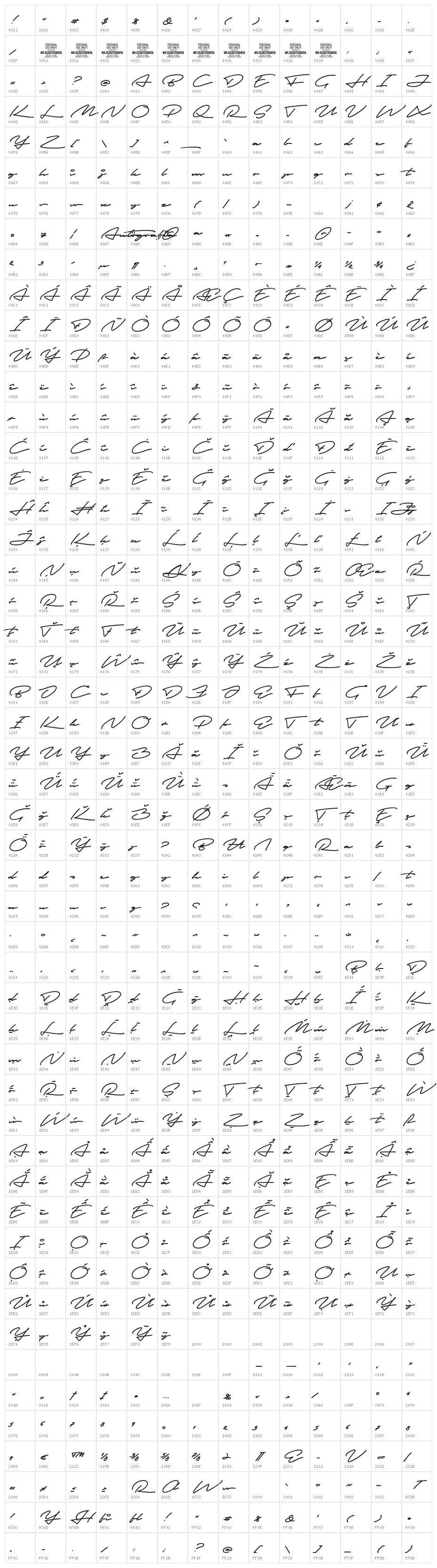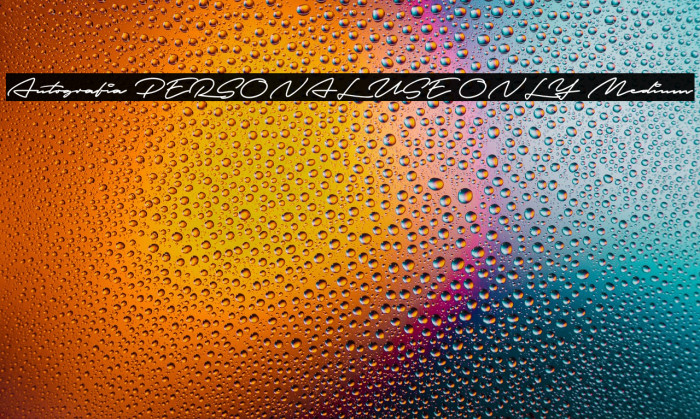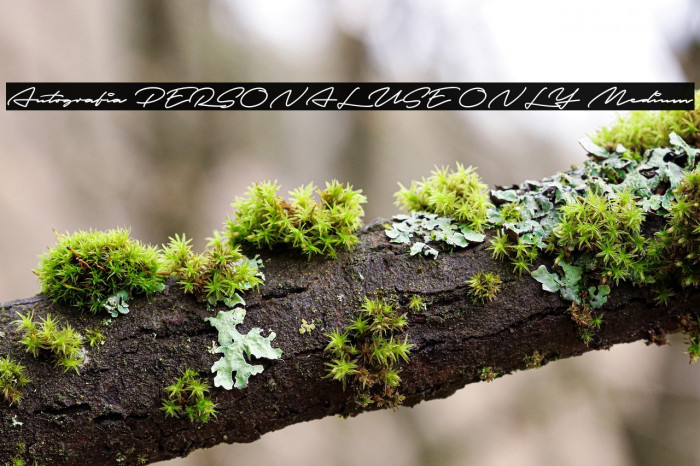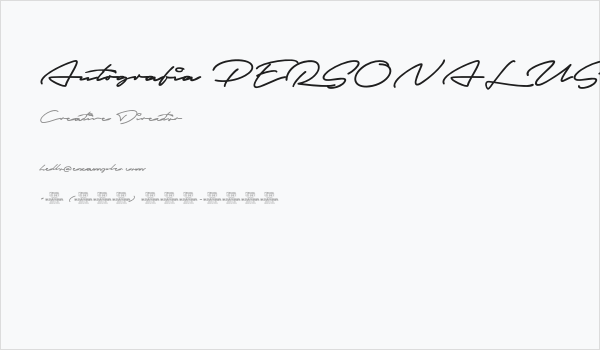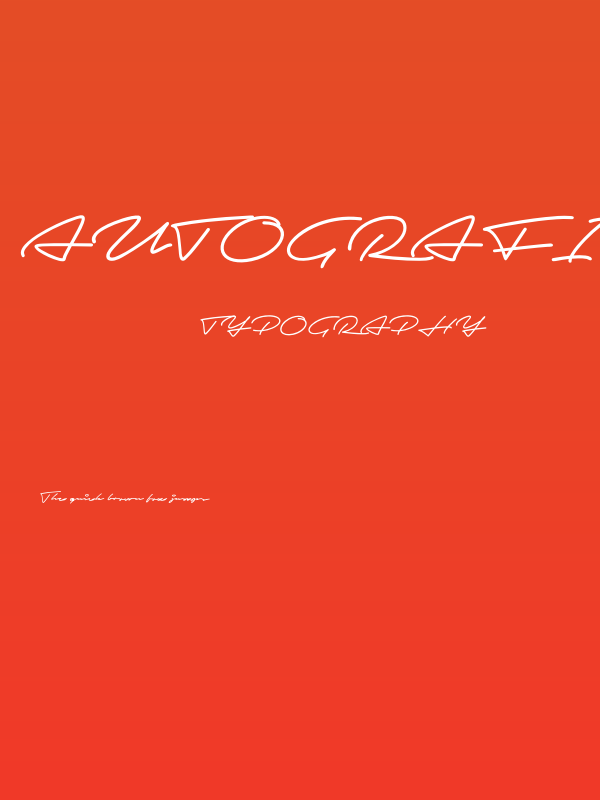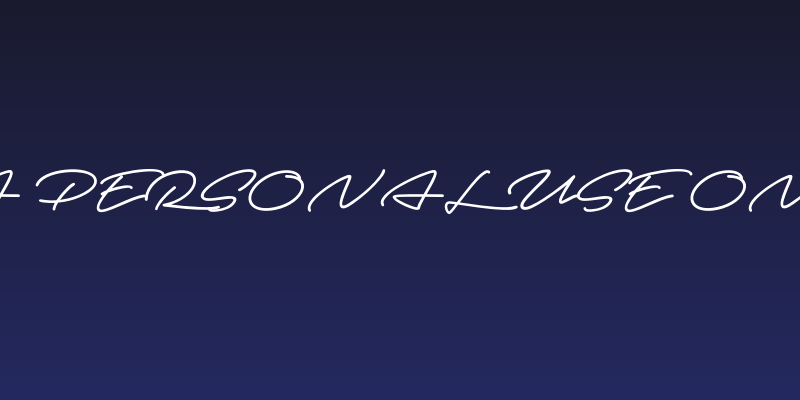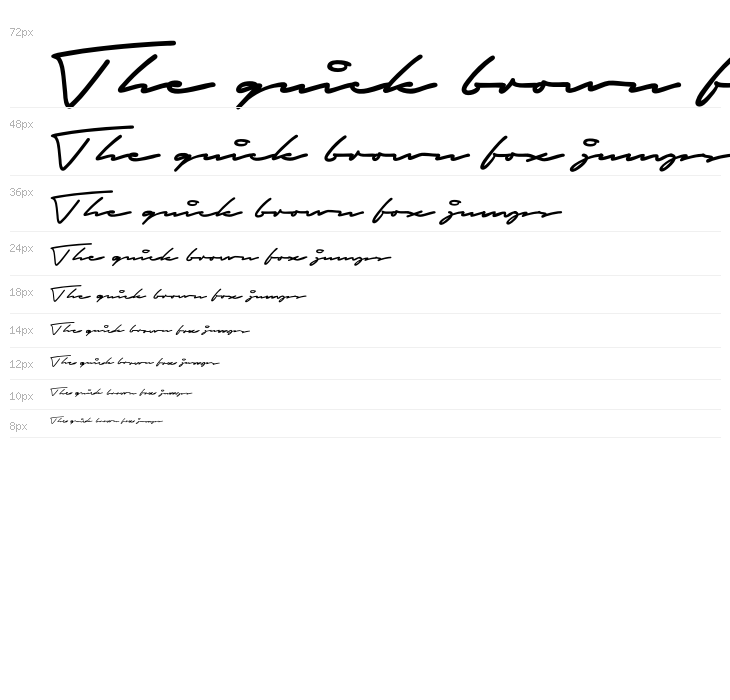
Autografia PERSONAL USE ONLY Medium Font
Autografia PERSONAL USE ONLY Medium Description
This font features a flowing, cursive style that mimics natural handwriting with a modern twist. The uppercase letters are elegantly connected, creating a seamless and fluid appearance. The lowercase letters maintain a consistent slant and are slightly more compact, enhancing readability while preserving the script's aesthetic. The numerals and special characters are designed to complement the letterforms, adding versatility to the font. This style is ideal for projects that require a personal touch, such as invitations, greeting cards, or branding materials.
| Use Case | Logos, Invitations, Personal branding |
| Proposed Projects | Ideal for wedding invitations, personal branding, greeting cards, and elegant logos. |